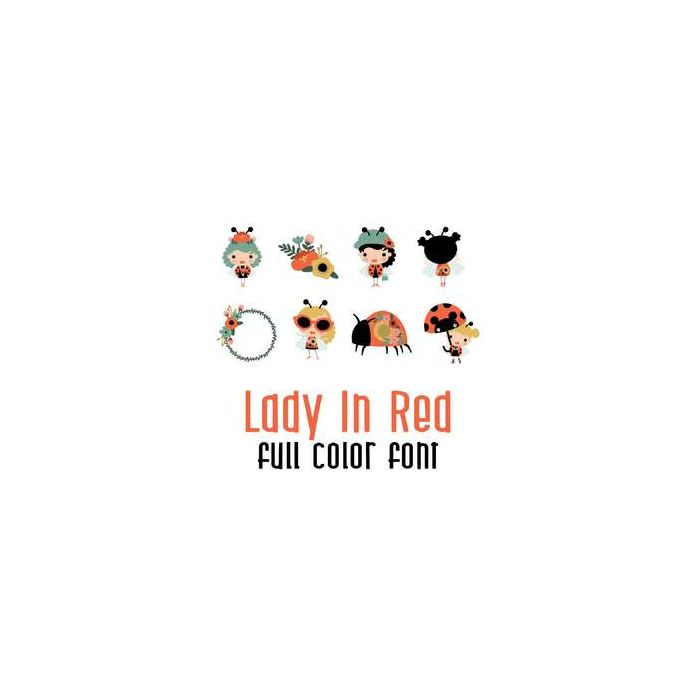
This adorable full color doodlebat font features cute characterized lady bugs with beautiful florals. Perfect for cards, crafts, gifts, decor, scrap book pages, planner stickers and more! Also perfect for Mother's Day!